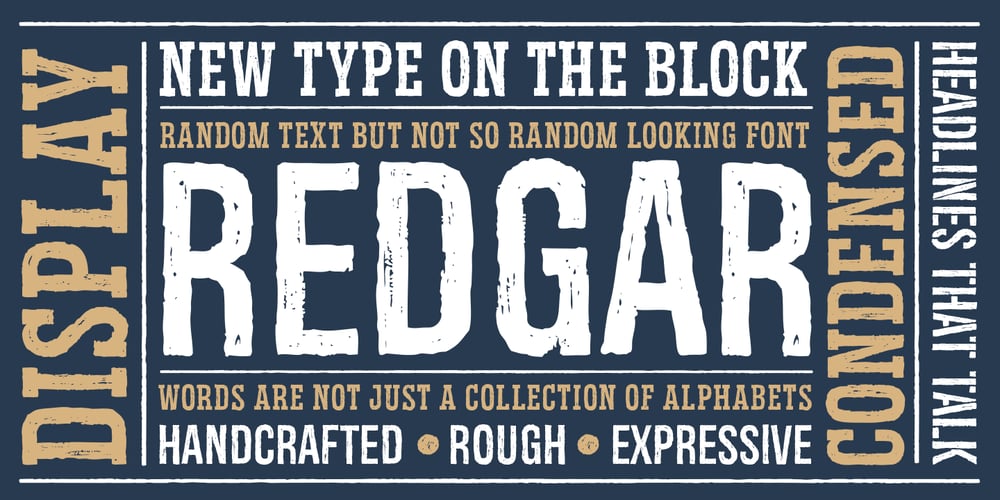
Redgar Font Family was designed by Deepak Dogra and published by Graphite. Redgar contains 9 styles and family package options. Redgar is a weathered display family. It comes in four styles – regular, slab, stencil, clean and has a matching set of banners and shapes.